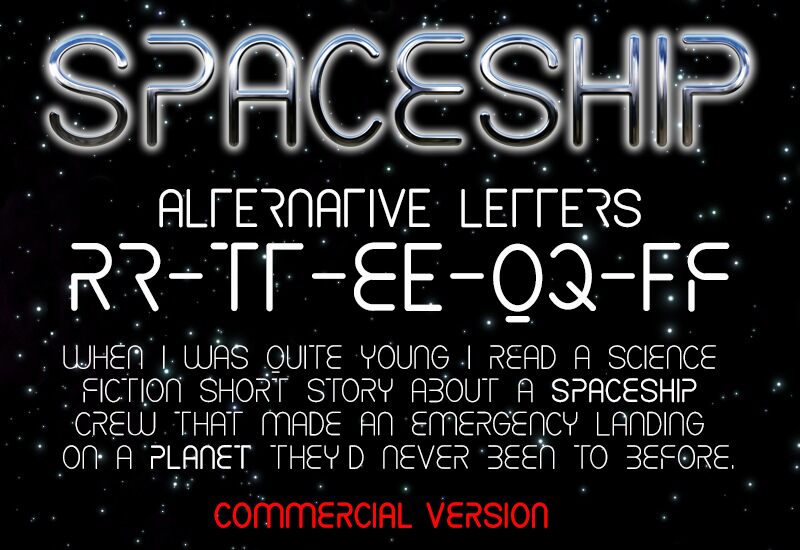
CF Spaceship by CloutierFontes is a free futuristic display font with sleek, monoline lettering. Its broad curves and tall, open forms recall streamlined spacecraft interiors and retro visions of tomorrow. Several letters use clipped joins and simplified shapes.
Space travel and speculative technology make a natural setting for this design, especially in science-fiction posters and game graphics. Its clean geometry also suits electronic music artwork and branding for tech products, where it can supply a cool, engineered voice. Against star fields, orbital diagrams, or metallic illustrations, the rounded strokes can read like part of a spacecraft control panel.
CF Spaceship Regular is a font by CloutierFontes, designed by Steve Cloutier in 2013.